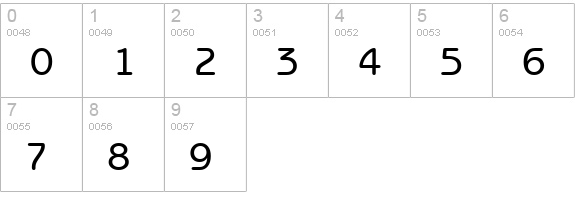
Benjamin-Gothic-Medium-Regular is a balanced, medium-weight variant in the Benjamin typeface family \xE2\x80\x94 well suited to sub-headlines, navigation, and balanced editorial work.
Benjamin Gothic Medium Regular font strikes the perfect balance between modernity and classic elegance. With its strong, clean lines and distinctive Gothic-inspired letterforms, this versatile typeface is ideal for a wide range of design projects. Whether you're creating eye-catching headlines, sleek branding materials, or stylish editorial layouts, Benjamin Gothic Medium Regular is sure to make a bold statement. This font is available for free download at FontsMarket.com, making it an accessible choice for designers looking to add a touch of sophistication to their work. With its timeless appeal and excellent readability, Benjamin Gothic Medium Regular is a must-have addition to any designer's toolkit.